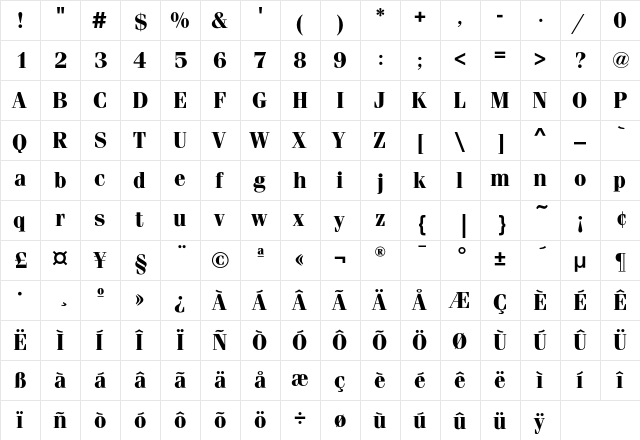
FeniceEF-Bold Regular
Design Context for FeniceEF-Bold Typeface
FeniceEF-Bold is a composed and adaptable typeface that performs quietly and consistently across a wide range of design contexts. The heavy weight commands attention and anchors typographic hierarchies.